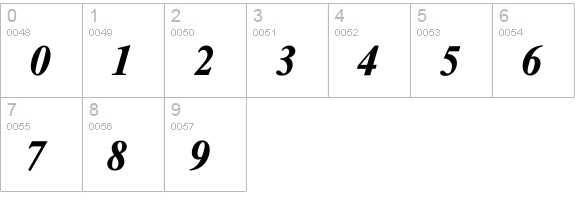
Iriccione Bold is a strong, high-contrast variant in the Iriccione typeface family \xE2\x80\x94 well suited to headlines, attention-grabbing titles, and strong calls-to-action.
Introducing Iriccione Bold, a captivating and versatile font that demands attention. With its bold and strong presence, this typeface is perfect for making a statement in any design project. Whether used for headlines, logos, or branding materials, Iriccione Bold delivers a bold and impactful message. With its unique and modern aesthetic, Iriccione Bold stands out from the crowd. Its sleek and sharp letterforms exude confidence and professionalism, making it an excellent choice for both print and digital designs. This font effortlessly combines elegance with a touch of edginess, making it suitable for a wide range of creative projects. One of the most appealing aspects of Iriccione Bold is that it is available for free download at FontsMarket.com. This means that you can easily access and utilize this remarkable font without any hassle. Being freely available, Iriccione Bold provides an opportunity for designers, artists, and creatives to enhance their work and bring their visions to life without any cost restrictions. Whether you are a professional designer or an aspiring artist, Iriccione Bold offers endless possibilities to elevate your designs. Its versatility allows for seamless integration into various design styles, from modern and minimalist to bold and expressive. The strong and commanding presence of Iriccione Bold will leave a lasting impression on viewers, ensuring that your message is delivered with impact and flair. So, why wait? Embrace the power of Iriccione Bold and unleash your creativity with this extraordinary font. Download it for free at FontsMarket.com and experience the freedom to create visually stunning designs that captivate and inspire.